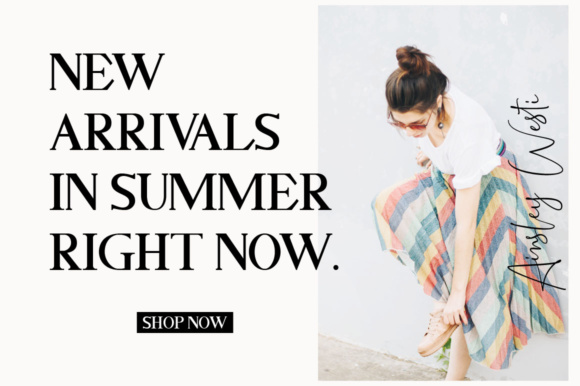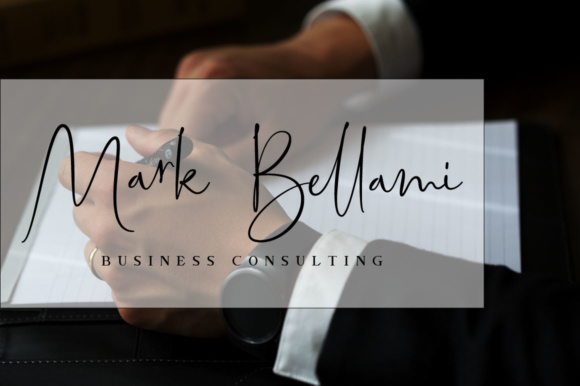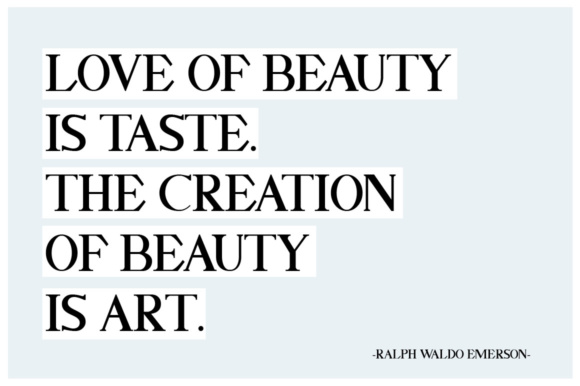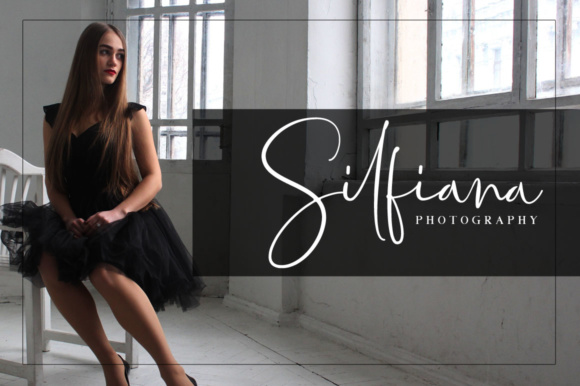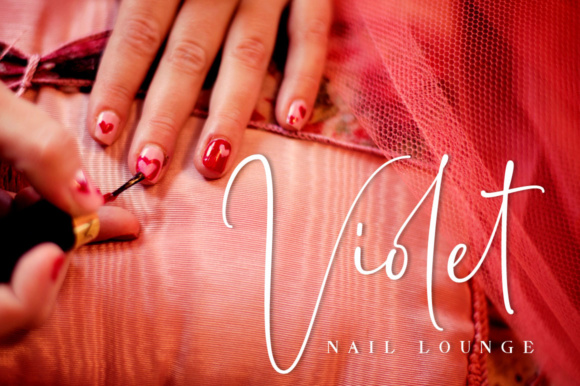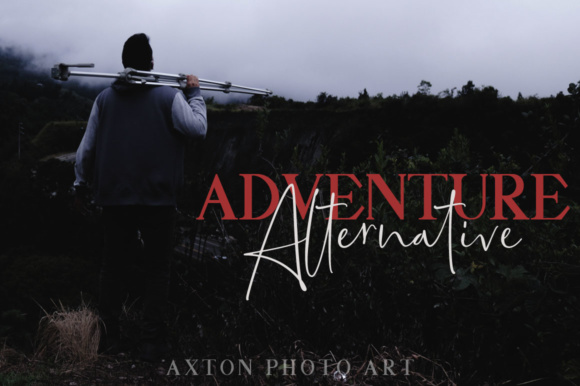
Introduction to Queen Billqis Duo Font
Have you ever been stuck on a design project, struggling to find the perfect combination of fonts to convey your message? It’s a common dilemma many designers face. But what if you stumbled upon a game-changing duo that elevates your designs to the next level? Welcome to the world of Queen Billqis Duo Font, a stunning pair of fonts that will revolutionize your creative projects.
This luxurious font duo consists of a sleek, modern serif font and a beautiful script font in a natural handwriting style, perfect for adding a personal touch to your designs. Whether you’re working on a logo, branding, wedding design, or social media post, Queen Billqis Duo Font is the ultimate design resource to help you achieve a high-quality look that stands out from the crowd.
Key Features of Queen Billqis Duo Font
- Unique duo font with a combination of two font styles in a single file, perfect for adding visual interest to designs.
- Transparent background, allowing for easy layering and composition in design projects.
- Designed for use in a variety of creative projects, including logos, branding, and digital art.
Honest Review: Queen Billqis Duo Font
As a designer, I’m always on the lookout for high-quality design resources that can elevate my creative projects. The Queen Billqis Duo Font is a great example of a well-designed font that’s perfect for any project.
What works well: ✨ The Queen Billqis Duo Font has a unique and elegant design that’s perfect for any creative project. The font is highly customizable, allowing you to adjust the spacing, size, and color to fit your design needs. The transparent background also makes it easy to overlay text on any background image or color.
Limitations: ⚠️ While the font is high-quality, it can be a bit difficult to read in certain font sizes. Additionally, the font is only available in two weights (light and bold), which may limit its versatility in certain designs.
Overall, I’m impressed with the Queen Billqis Duo Font. It’s a great free download that’s perfect for any creative project. I would recommend it to anyone looking for a high-quality font with a unique and elegant design.
- Perfect for creative projects that require a unique and elegant design
- Highly customizable with adjustable spacing, size, and color
- Transparent background makes it easy to overlay text on any background
- Available in two weights (light and bold)
How to Use Queen Billqis Duo Font
Tips for Getting the Most Out of Queen Billqis Duo Font
To get the most out of the Queen Billqis Duo Font, use it in conjunction with a transparent background to create a clean and modern design. Experiment with different font sizes, colors, and combinations to find the perfect look for your creative project.
The Queen Billqis Duo Font is suitable for various design projects, including:
- Graphic design projects
Does the Queen Billqis Duo Font have a transparent background?
Yes, the Queen Billqis Duo Font comes with a transparent background, making it easy to use with various backgrounds and design elements. This feature allows for greater flexibility and creativity in your design projects.